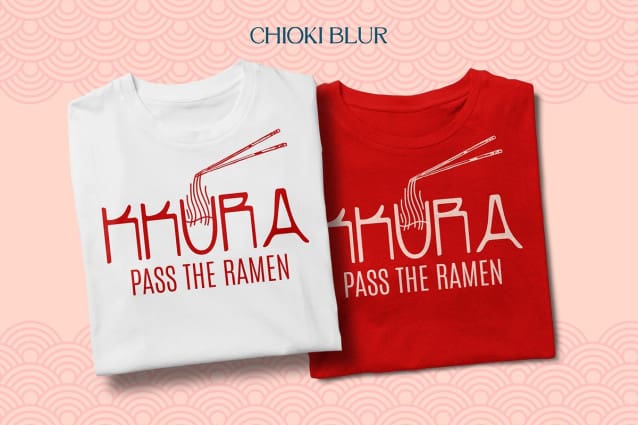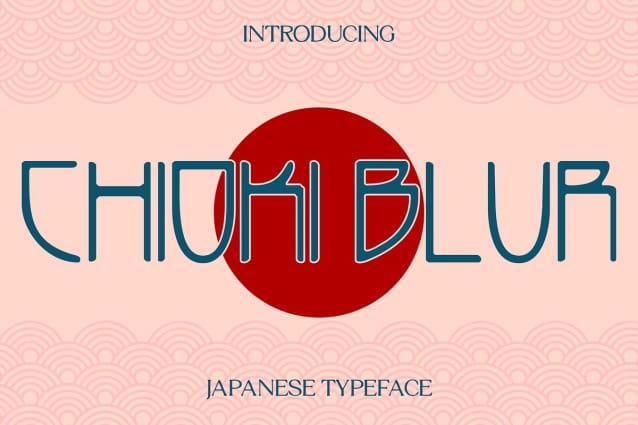
Chioki Blur Font
Chioki Blur Font is a display font that elegantly combines Japanese-inspired Art Deco elements with a blurred vibe. Its unique design pays homage to traditional Japanese artistry while adding a modern twist, making it perfect for captivating displays and artistic projects.
Designed for impact, Chioki Blur is ideal for headlines, posters, and other display applications. Its blurred vibe adds a sense of movement and depth, ensuring that your message is both striking and memorable.
Despite its bold appearance, Chioki Blur is a versatile font that can be used in a variety of creative settings. Whether used for branding, packaging, or editorial layouts, its Japanese-inspired Art Deco style adds a touch of artistic flair to any project.
Elevate your designs with Chioki Blur, where Japanese elegance meets Art Deco style. Its unique blend of traditional and modern elements is sure to add a touch of sophistication and charm to your creative work.